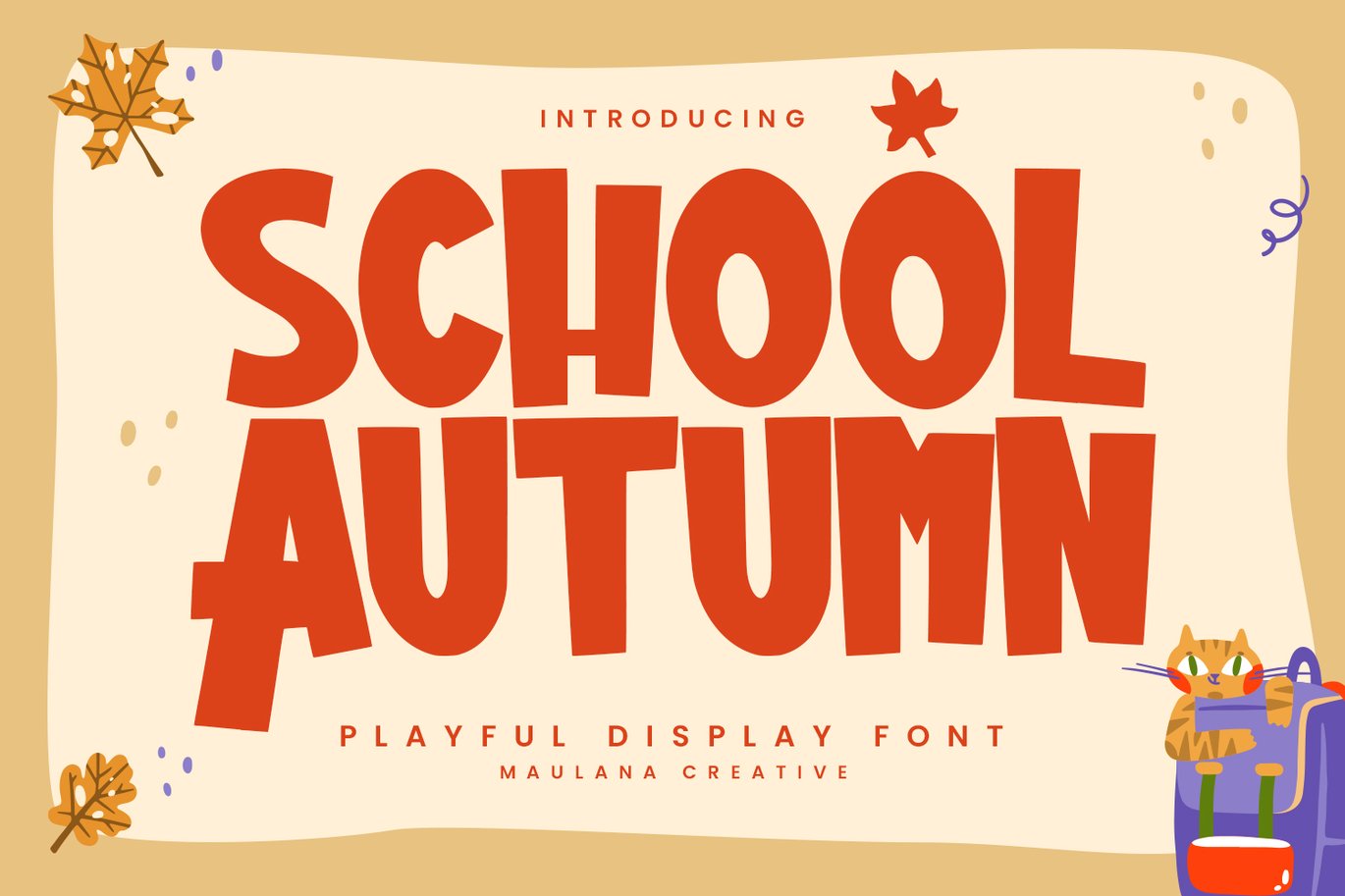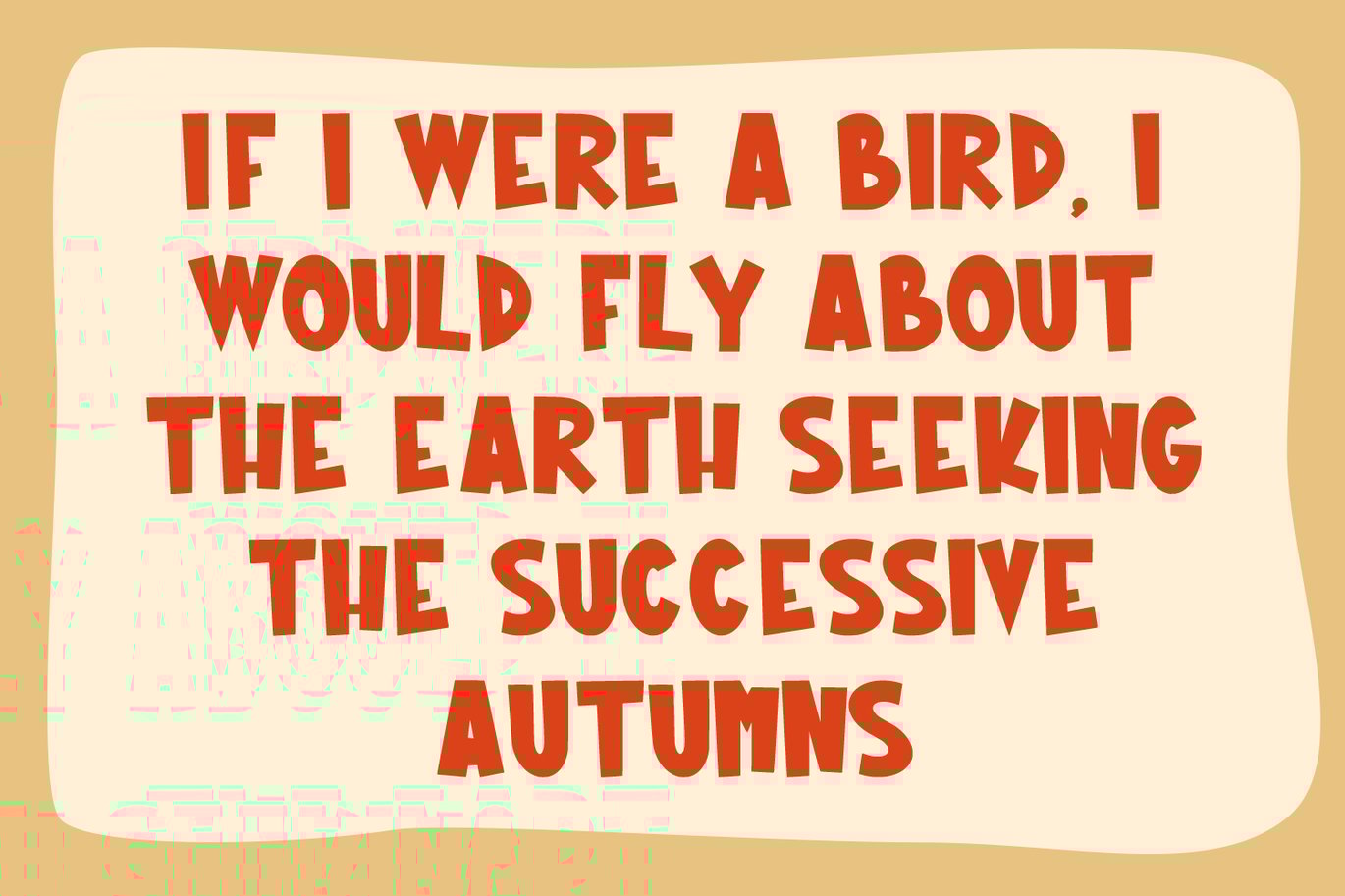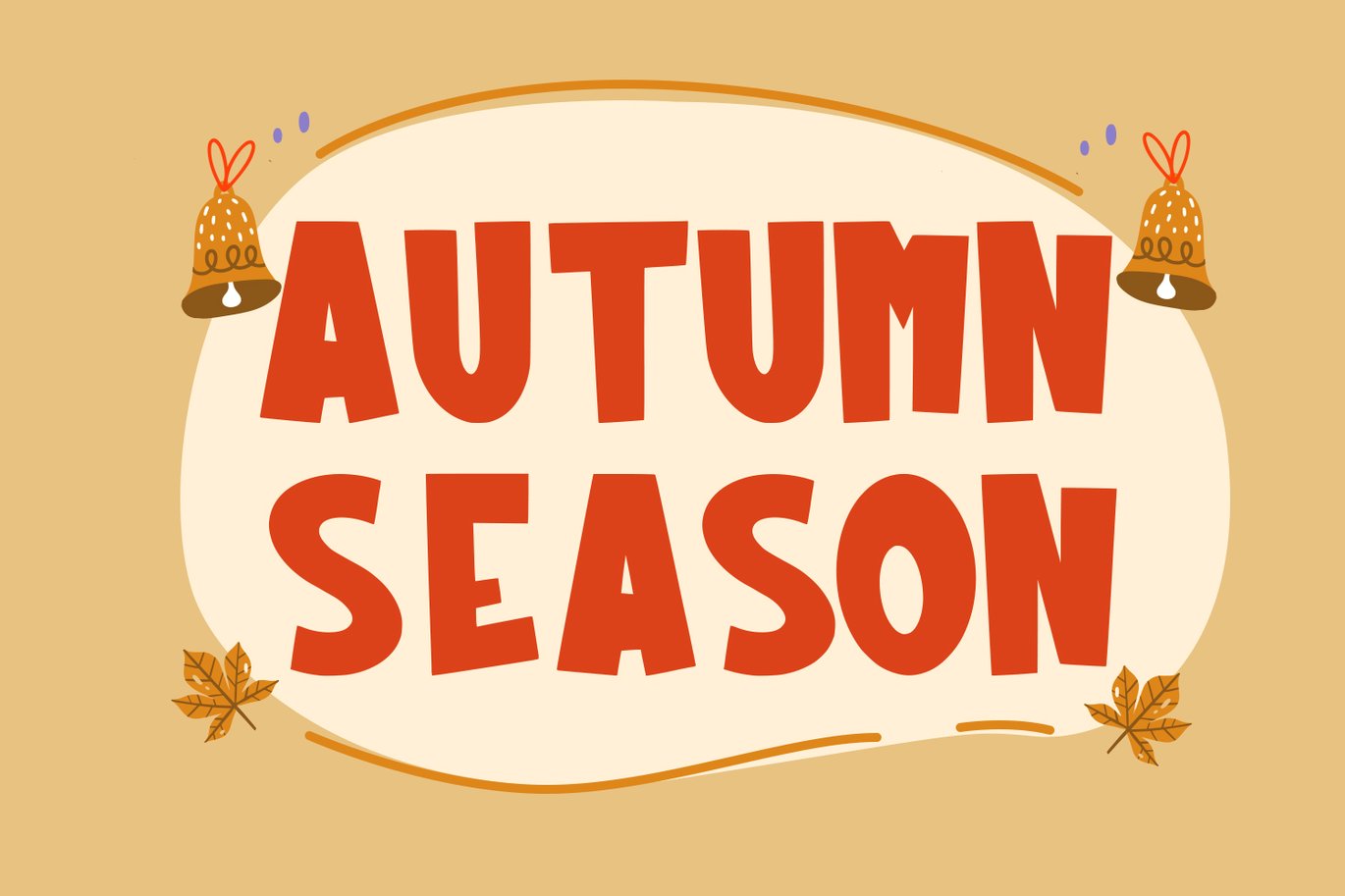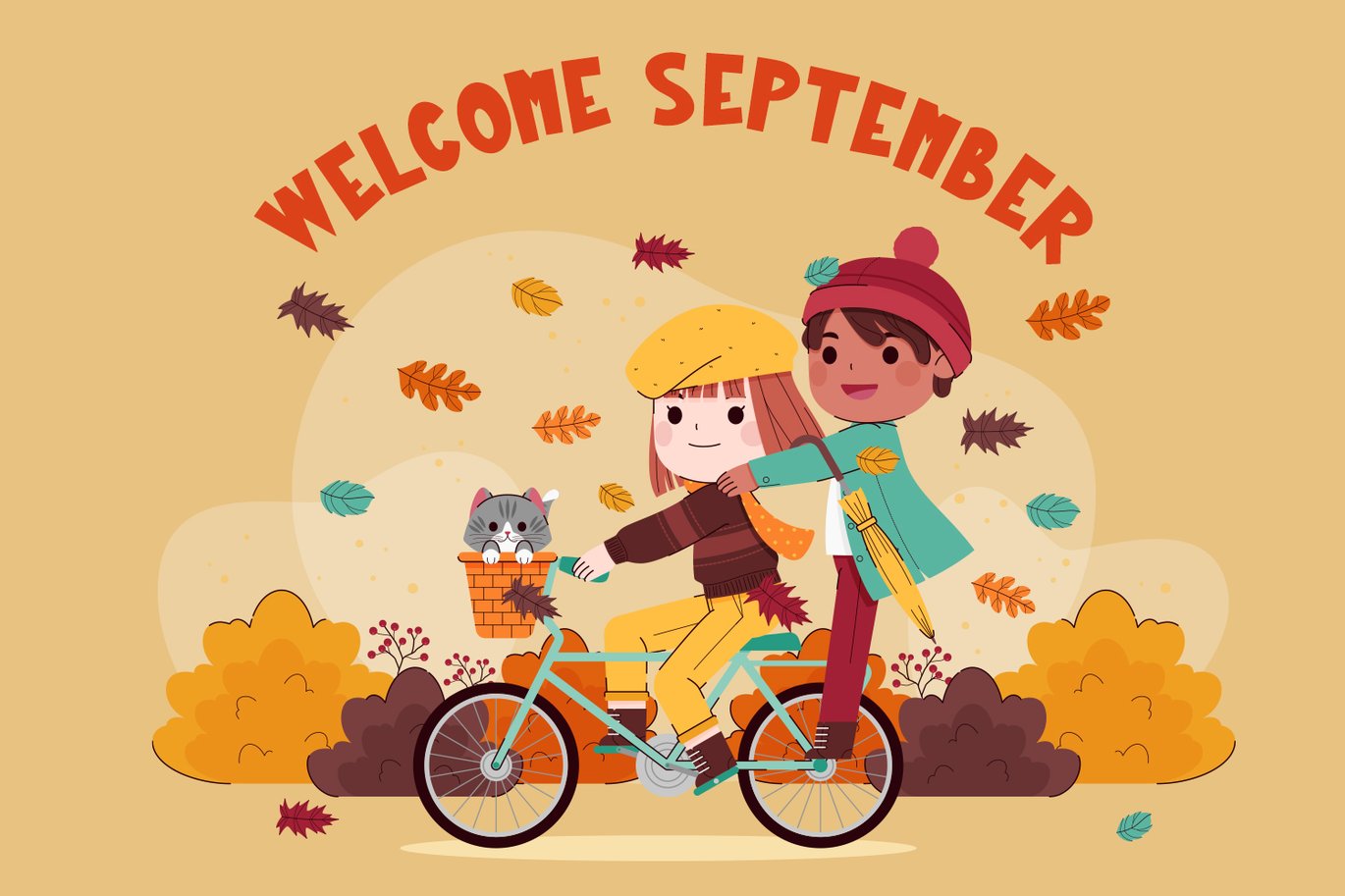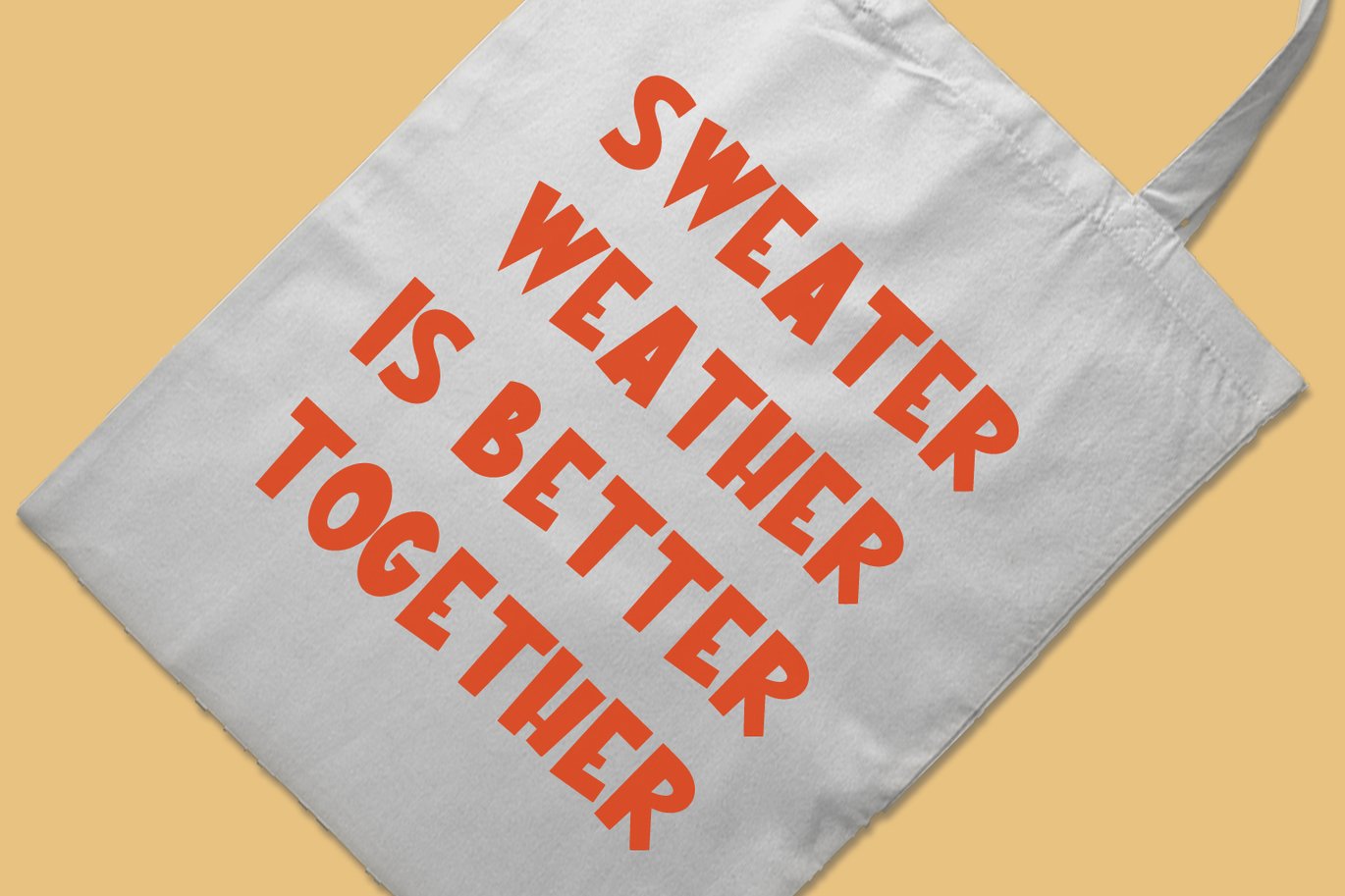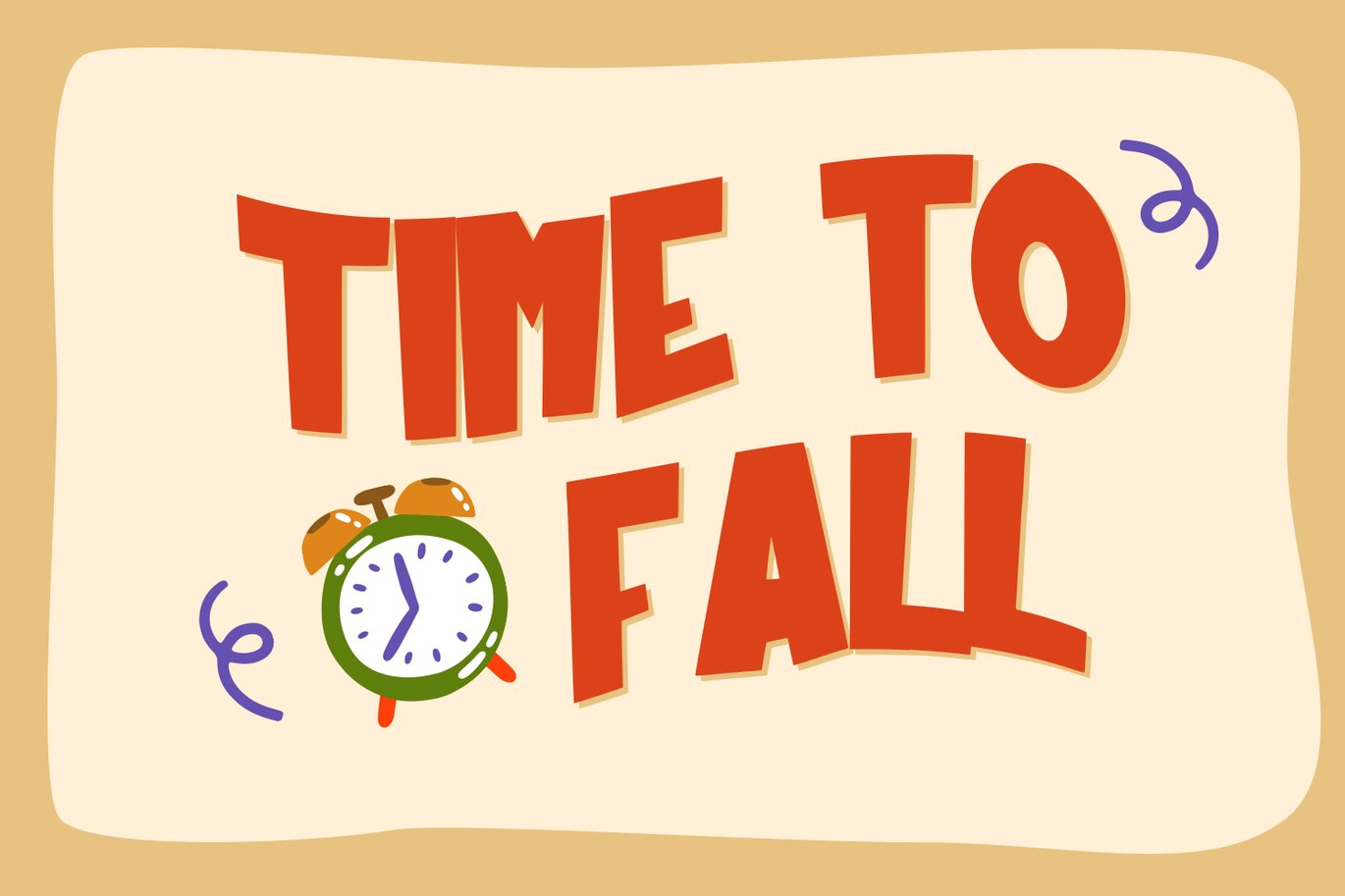
Autumn School Playful Display Font
Autumn School is a playful modern display font. Bold stroke, fun character with a bit of ligatures and alternates. To give you an extra creative work. Autumn School font support multilingual more than 100+ language. This font is good for logo design, Social media, Movie Titles, Books Titles, a short text even a long text letter and good for your secondary text font with script or serif. Make a stunning work with Autumn School font.